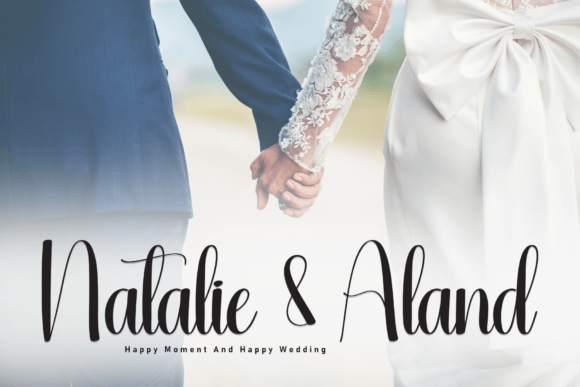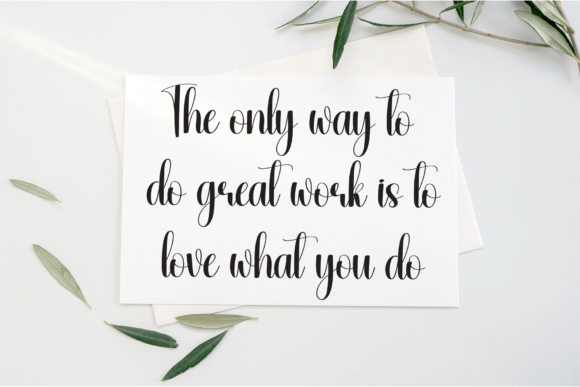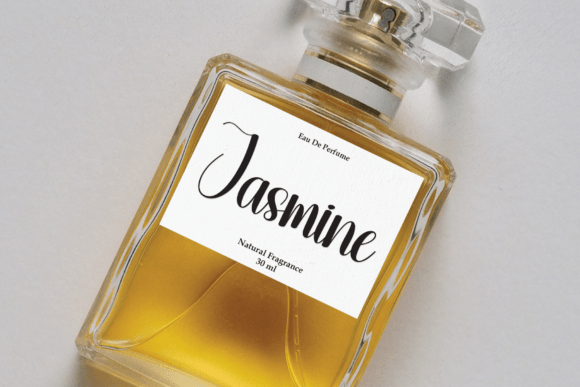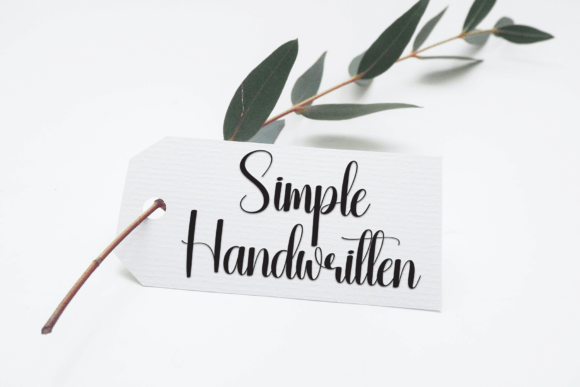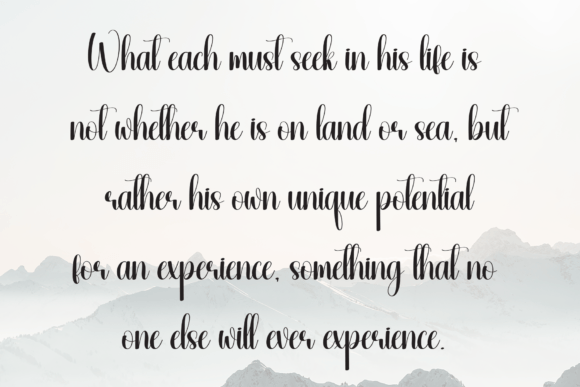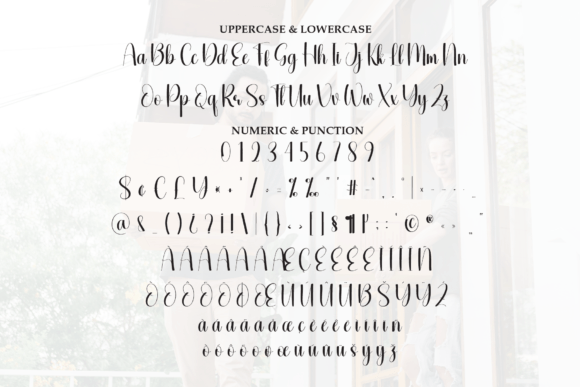
Adding a Personal Touch to Your Creative Projects
You’ve spent hours brainstorming, sketching, and perfecting your design. Finally, it’s time to bring your vision to life with the perfect font. But, you’re not looking for something generic or overused. You want a font that reflects your unique style and personality, while still conveying your message clearly.
Enter the Becareful Font, a contemporary handwritten font that effortlessly blends style with readability. Its flowing strokes and unique character design make it the perfect choice for adding a personal and modern touch to your creative endeavors. Whether you’re designing a logo, creating a social media campaign, or crafting a wedding invitation, the Becareful Font is sure to make your project stand out.
For designers, the Becareful Font is a valuable asset. Its versatility and readability make it easy to use in a variety of projects, from digital to print. With the Becareful Font, you can add a touch of personality to your designs without sacrificing clarity or legibility.
Becareful Font Key Features
- Unique Characteristics: Becareful Font features a unique blend of modern and vintage elements, with intricate details and subtle texture.
Becareful Font Review
As a designer, I was excited to dive into the Becareful Font and see what it had to offer. ✨ One thing that immediately stood out to me was the font’s unique blend of modern and vintage elements. It’s perfect for designers who want to add a touch of sophistication to their projects without looking too trendy.
- ✨ The font’s versatility is a major plus. It can be used for a wide range of applications, from headlines to body text.
- ✨ The font’s character set is extensive, making it easy to find the perfect glyph for your project.
However, there are a few limitations that I’d like to mention. ⚠️ Firstly, the font can be a bit difficult to read at small font sizes. This may be a problem for designers who need to use the font in situations where space is limited.
- ⚠️ The font’s lack of italic and bold styles can be a bit limiting for designers who need to emphasize certain words or phrases.
Overall, I’d say that Becareful Font is a solid choice for designers who want a unique and versatile font. While it may have a few limitations, its strengths far outweigh its weaknesses.
Tips: Use Becareful Font to add a touch of whimsy to your designs. Experiment with different font sizes and colors to create visual interest.
Becareful Font is perfect for:
- Creating eye-catching headlines and titles.
- Adding a touch of whimsy to your